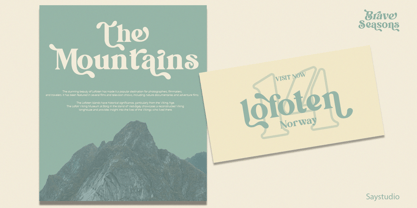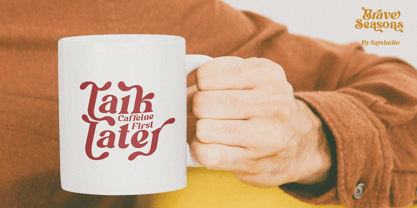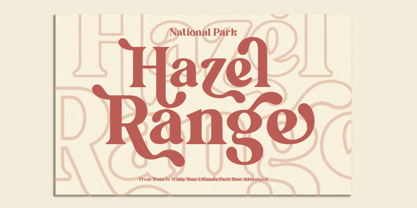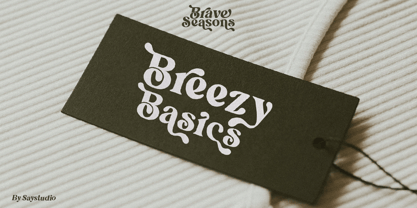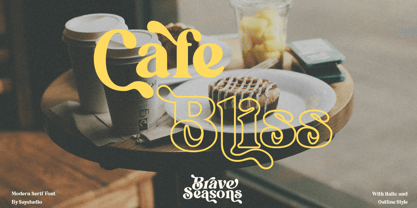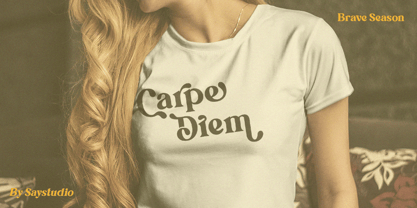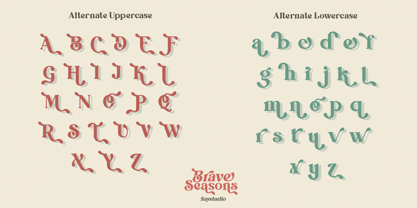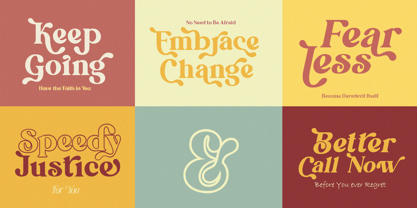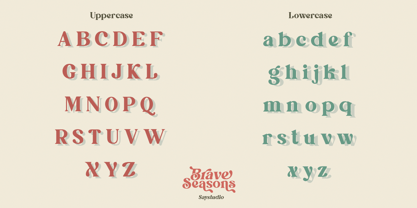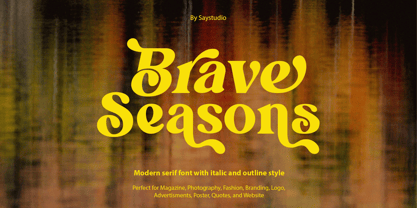
Brave Seasons
The Brave Seasons Font Family was designed by Ghina Luthfiarieska and published by Font Liner. Brave Seasons contains 2 styles and family package options.
Brave Seasons - A brand new "two-faced" bold serif with both modern and vintage curves.
A Two-faced beauty : Modern or Vintage
If you are going Vintage Retro : Access your OpenType features to access the large selection of alternate letters and ligatures, select the letters you like from the large variety to get the vintage look you are after. Vary between a light and heavy vintage look based on how many letters you alter.
If you are going Modern Chic : Just type with regular letters :)
Play with your letter spacing to add even more class to your designs.
Due to its split personality , Brave Seasons is a very versatile font, which is available in 2 styles: regular, italic, covering a wide range project types, from bold magazine imagery , to wedding invitations, to branding, poster design and so much more.